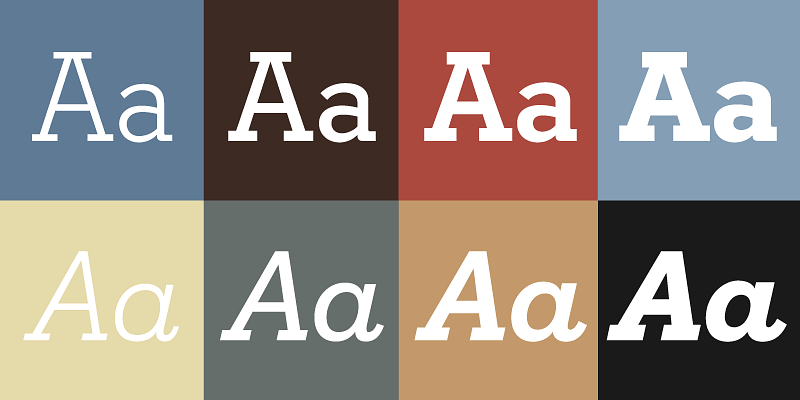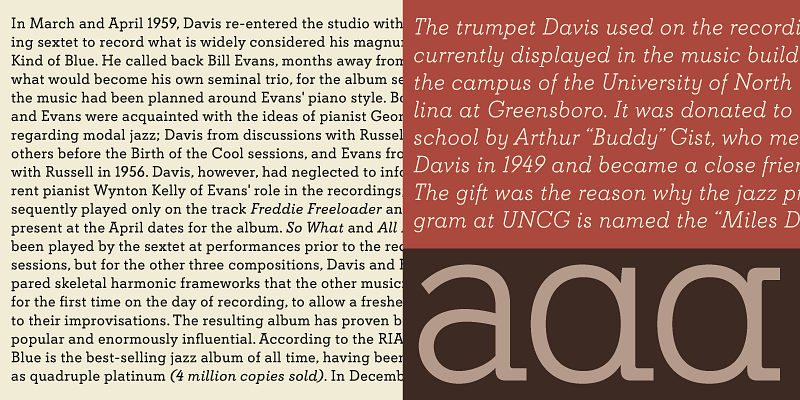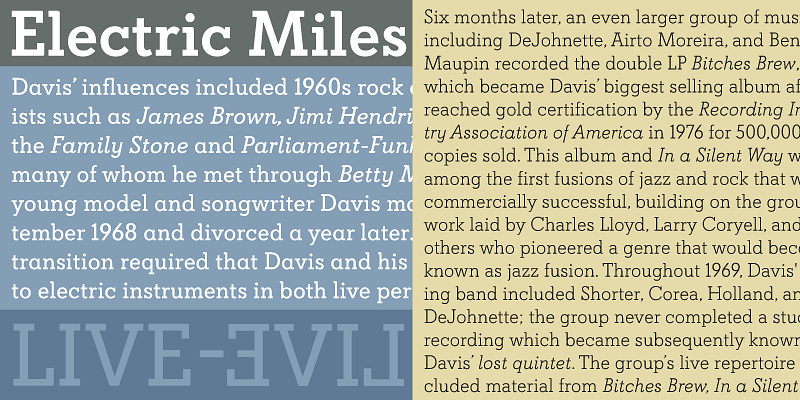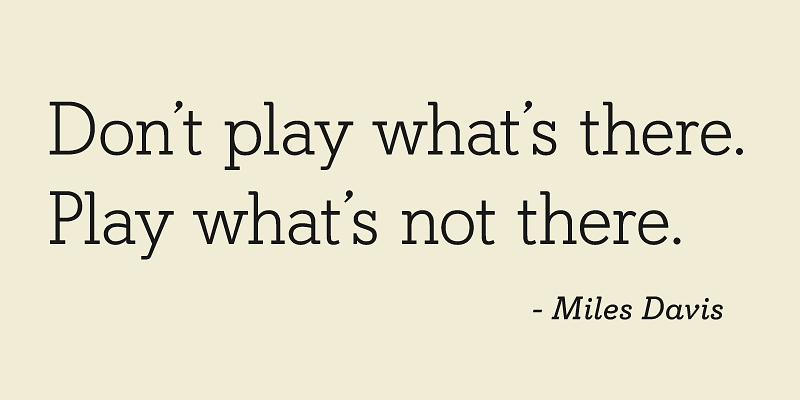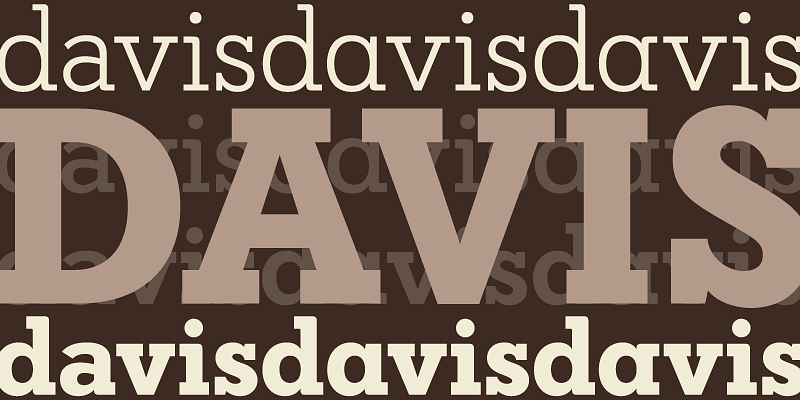
Davis and its sans serif counterpart, Davis Sans, work very well together to satisfy the multiple layers of corporate, advertising and interface applications, from identity and editorial to the many levels of product branding.